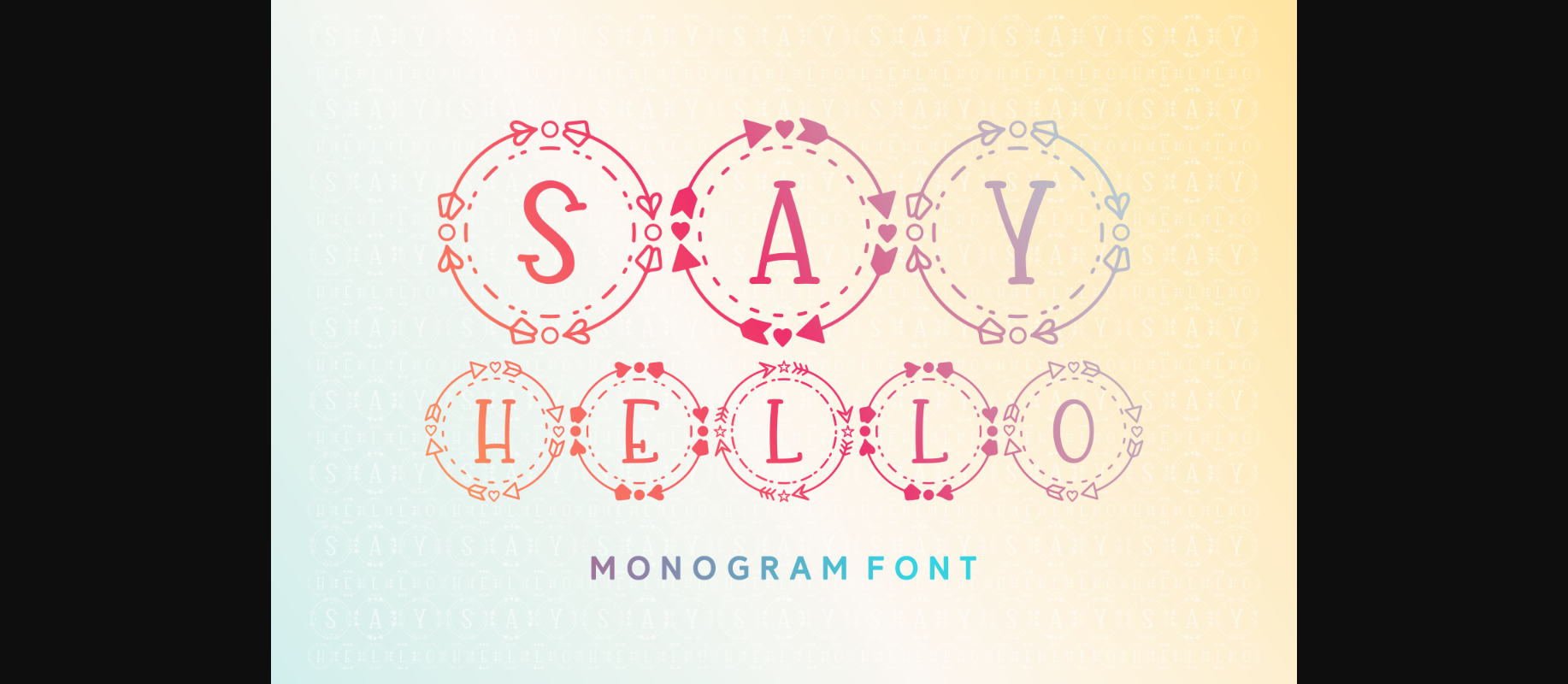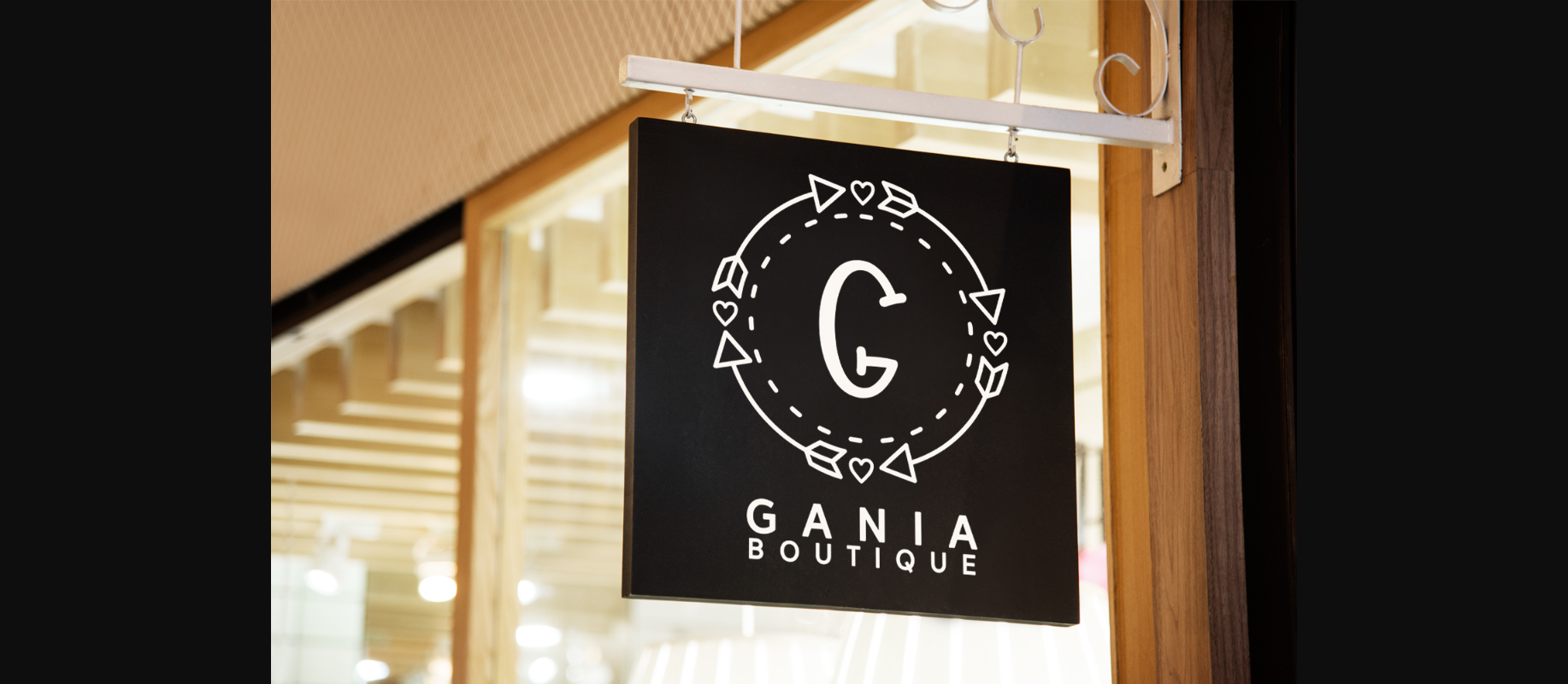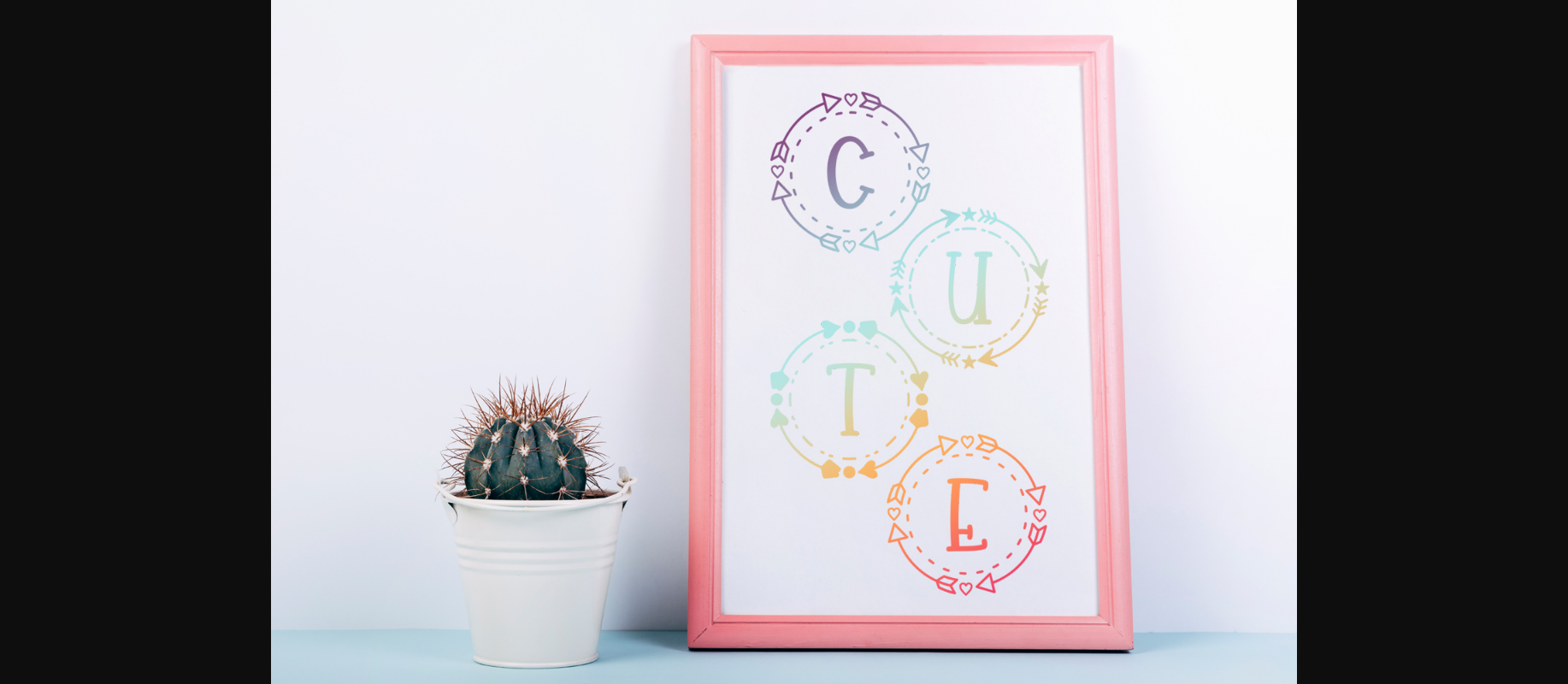
Say Hello Font
About Say Hello Font
Say Hello is a beautiful and light monogram font with a charming twist. Get inspired by its whimsical and detailed feel.